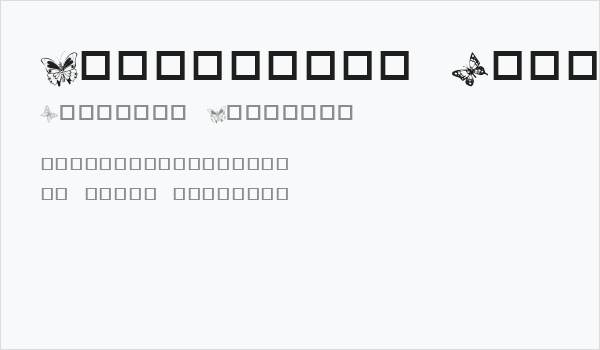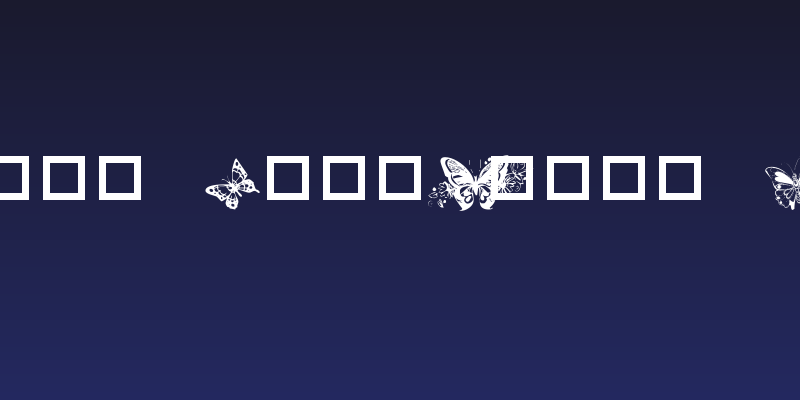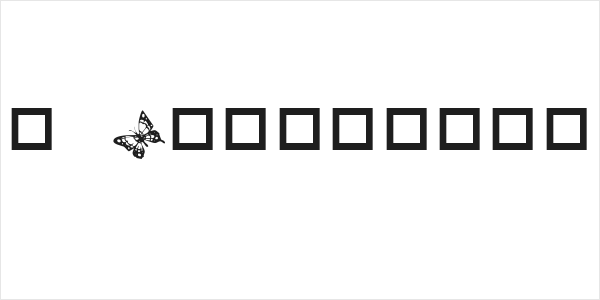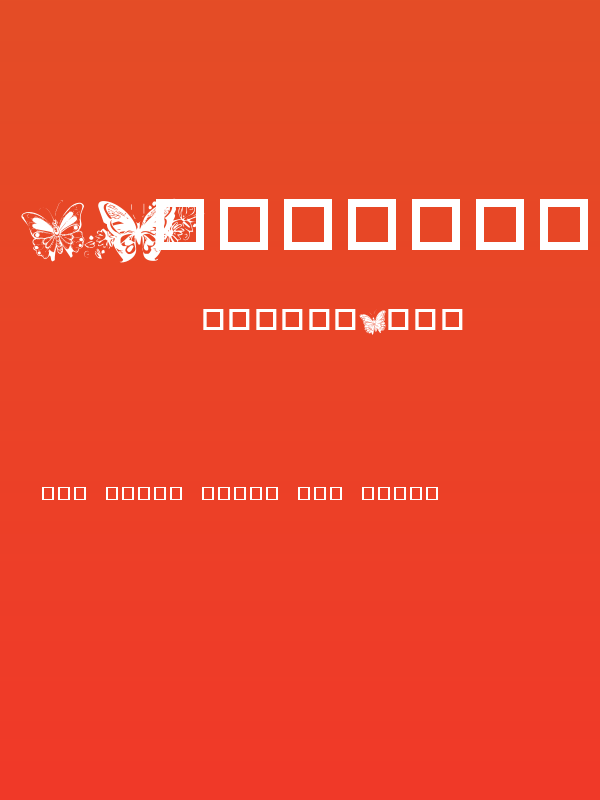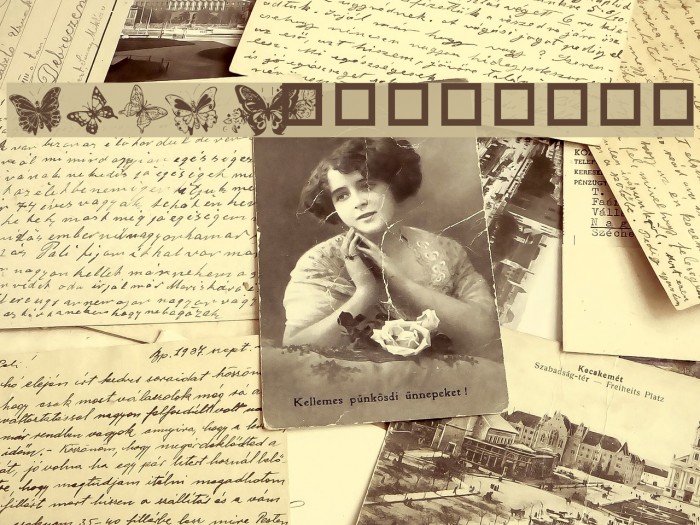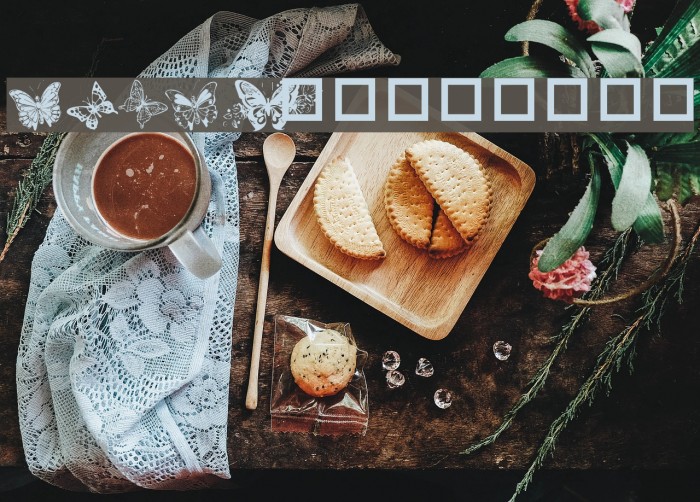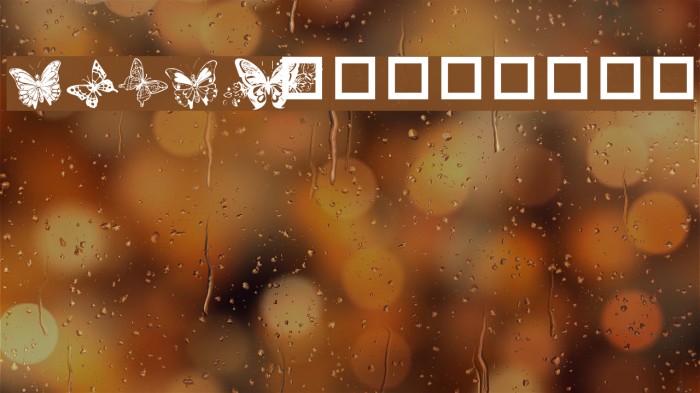
Destiny's Butterfly Dingbats Font
Destiny's Butterfly Dingbats Description
This collection features a series of intricate butterfly illustrations, each uniquely designed to capture the delicate beauty and diversity of these creatures. The designs range from highly detailed and realistic depictions to more abstract and stylized interpretations. Each butterfly showcases a different wing pattern and structure, emphasizing the elegance and grace associated with these insects. The use of black and white contrasts enhances the visual impact, making each butterfly stand out distinctly. This set is perfect for adding a touch of nature-inspired elegance to any creative project.
| Use Case | Logos, Decorative art, Invitations |
| Proposed Projects | Ideal for nature-themed designs, greeting cards, invitations, scrapbooking, and decorative art projects. |